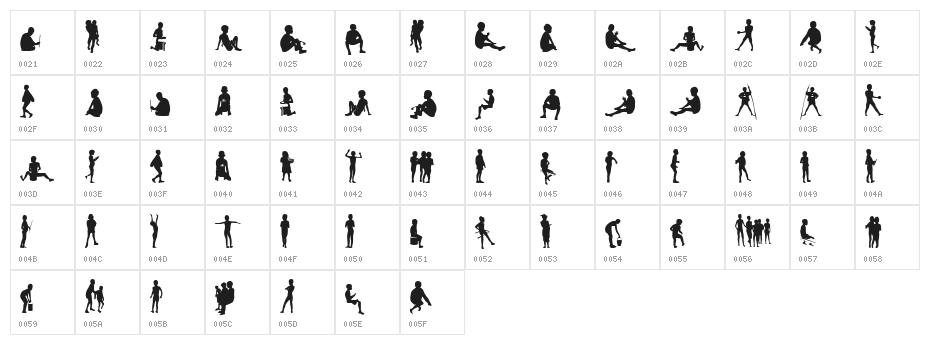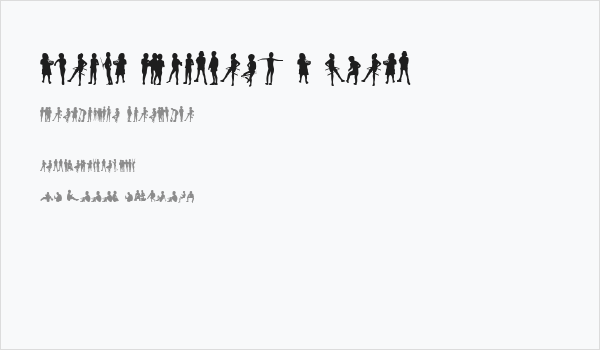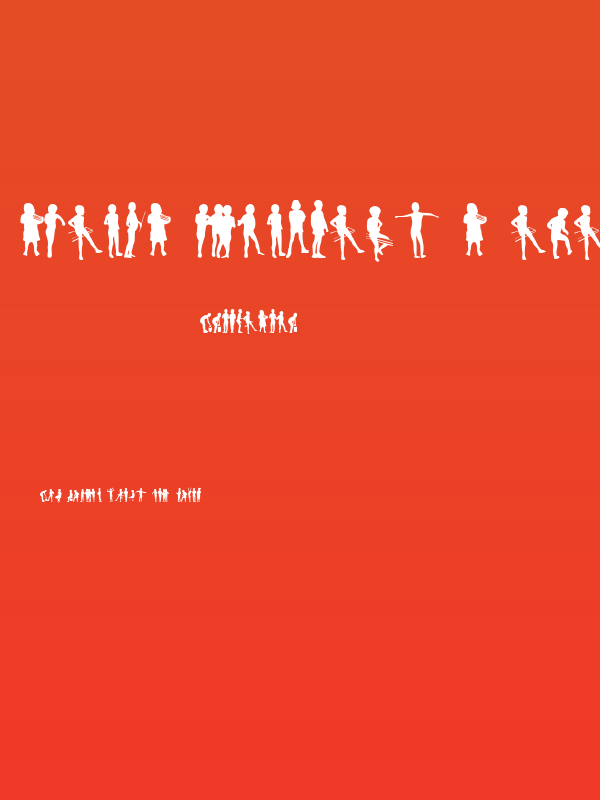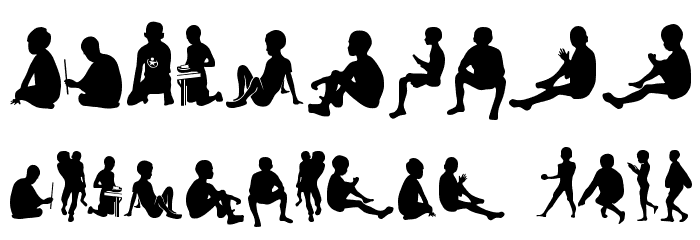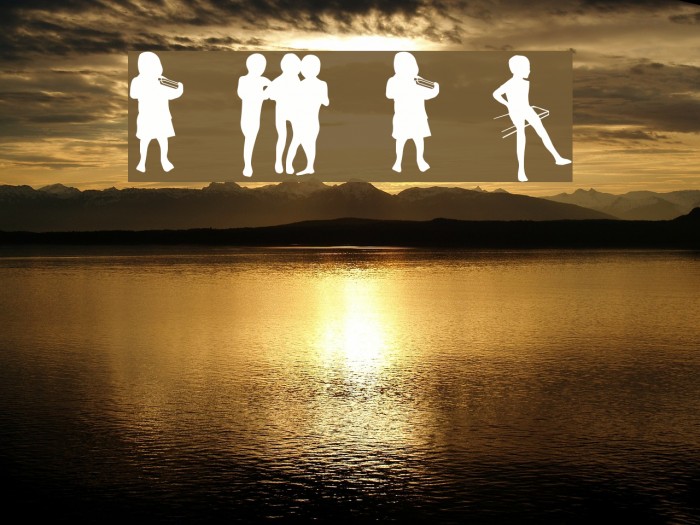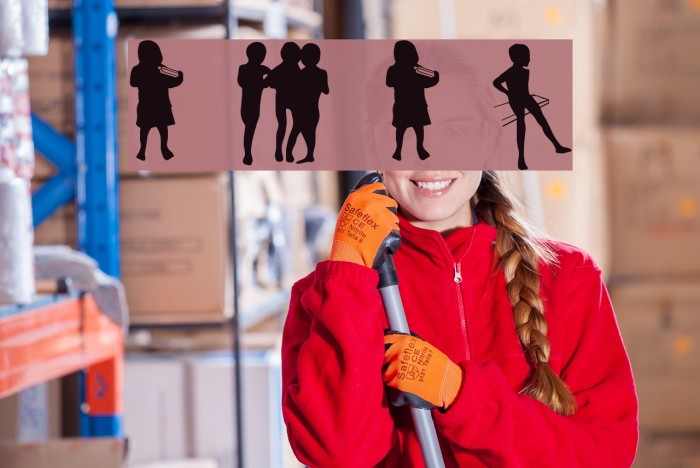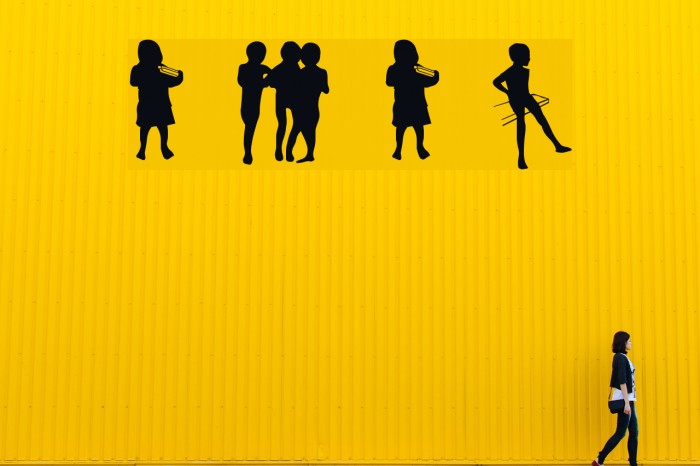
Afrika Children A Rural Font
Afrika Children A Rural Description
A collection of silhouette illustrations depicting children in various rural activities and poses, designed as a decorative symbol set rather than a traditional font with alphanumeric characters.
| Overall Style | Illustrative, cultural, and narrative |
| Use Case | Decorative elements in print and digital media, storytelling visuals, thematic design projects |
| Proposed Projects | Suitable for educational materials, cultural presentations, children's books, posters, and community outreach projects focusing on rural life or childhood themes. |